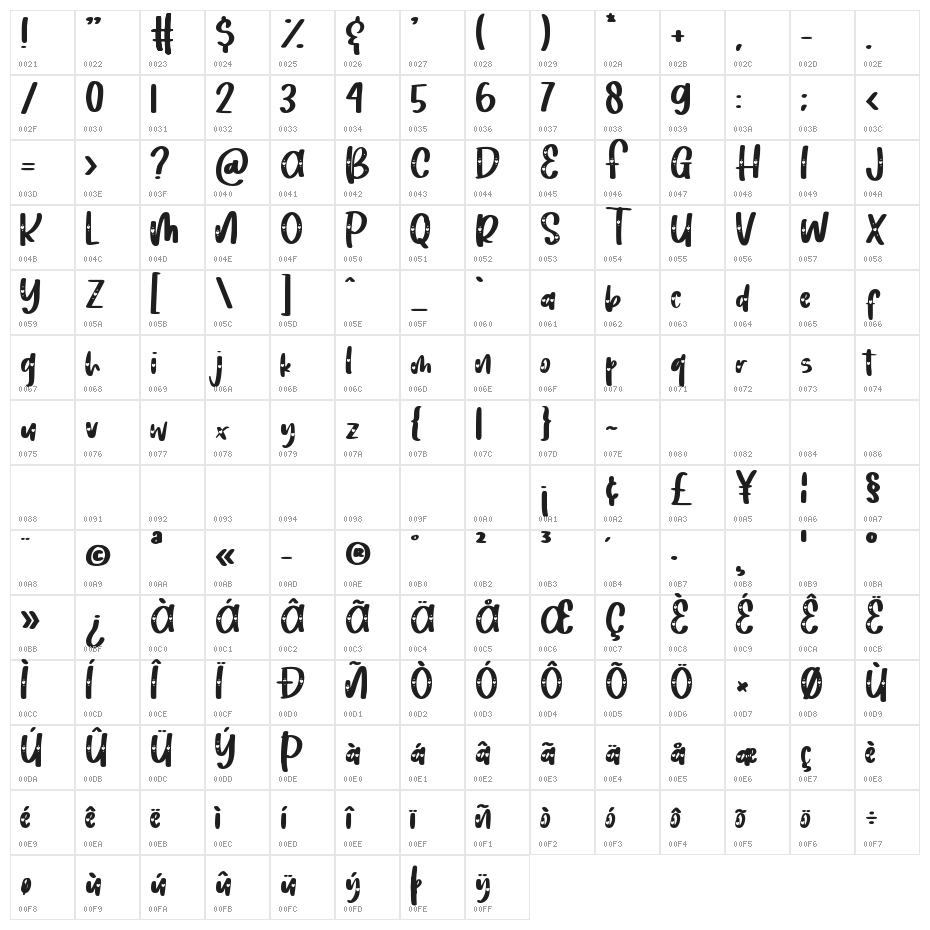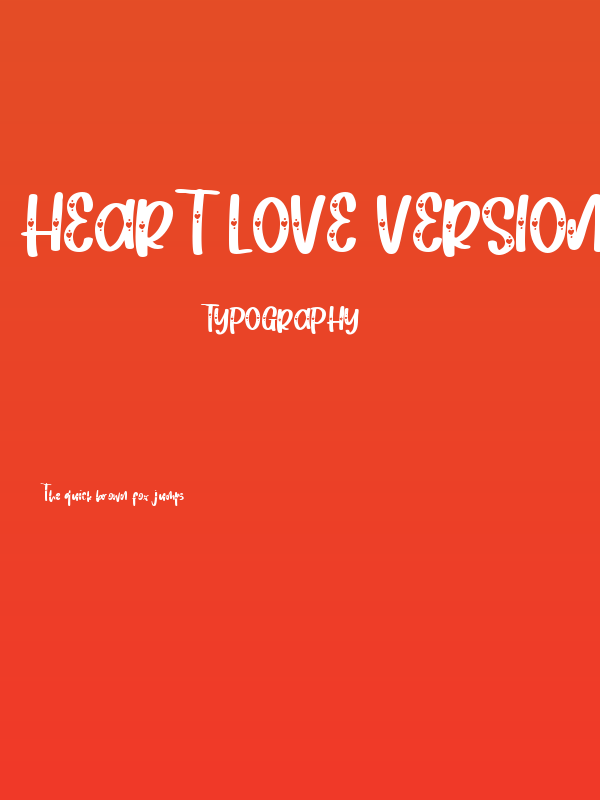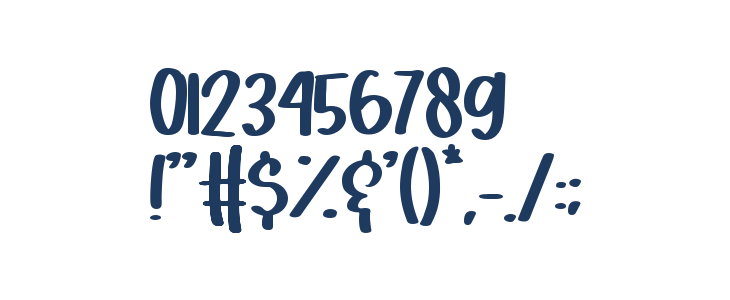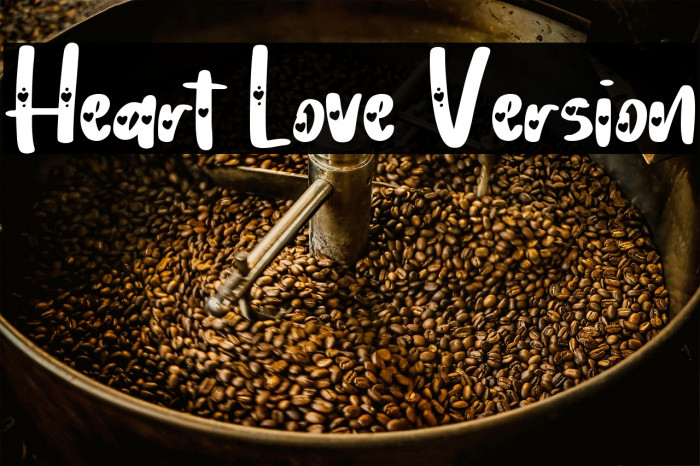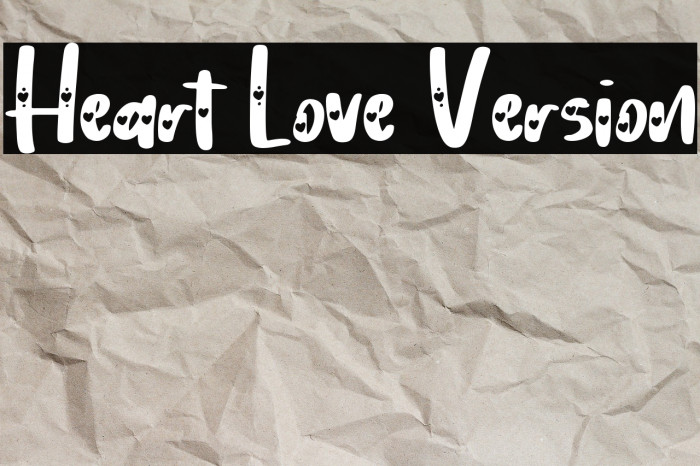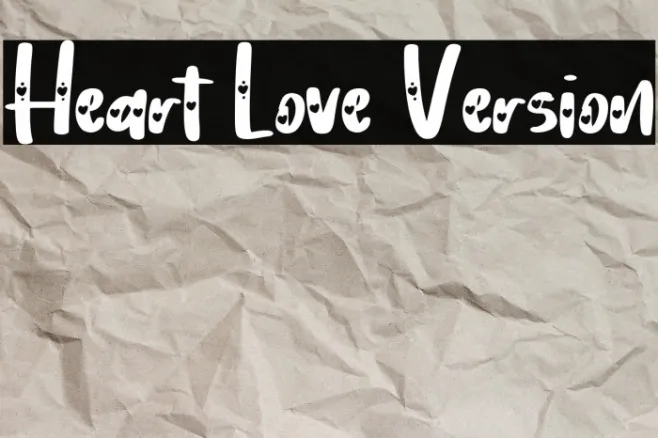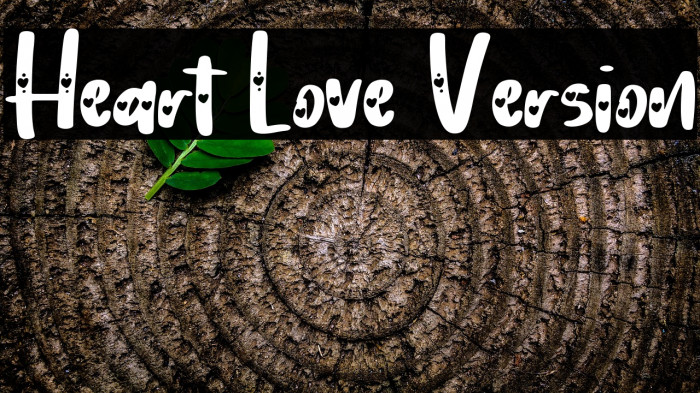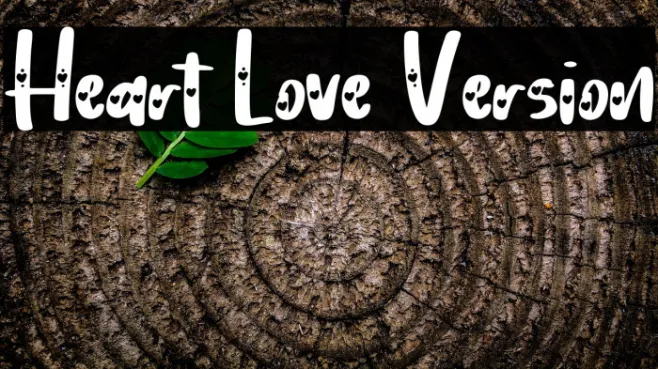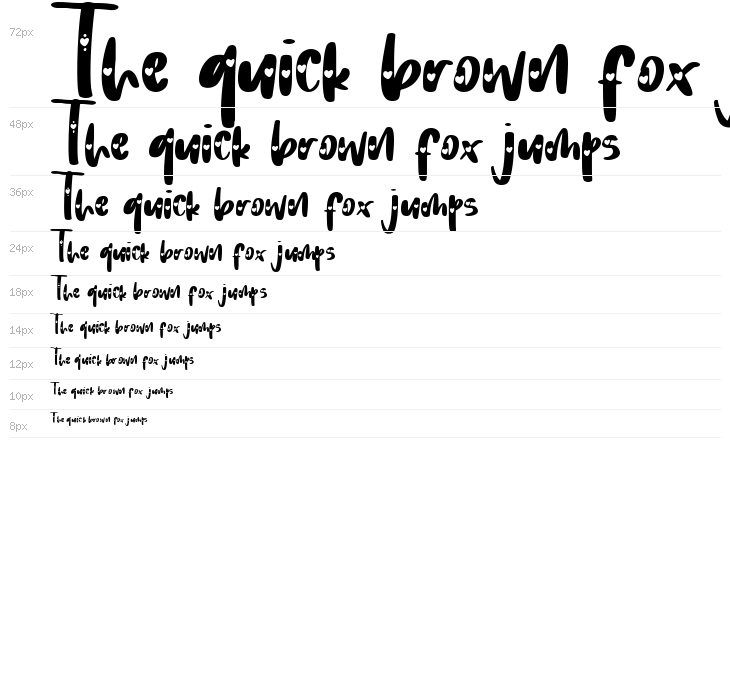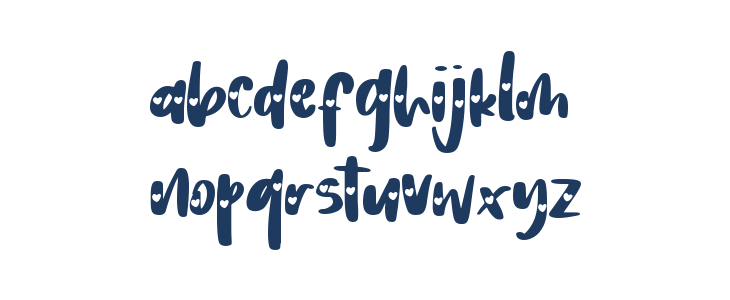
Heart Love Version Font
Heart Love Version Description
This playful and decorative font features a whimsical style with heart-shaped embellishments integrated into the letters. The characters are bold and rounded, giving a friendly and approachable feel. The uppercase and lowercase letters maintain a consistent style, with the heart motifs adding a unique touch. The numerals and special characters follow the same design, ensuring a cohesive look across all text elements. This font is ideal for projects that require a fun and romantic aesthetic, such as greeting cards, wedding invitations, or playful branding materials.
| Overall Style | Playful, Romantic |
| Use Case | Headlines, Logos, Decorative text |
| Proposed Projects | Greeting cards, wedding invitations, playful branding, romantic-themed designs. |